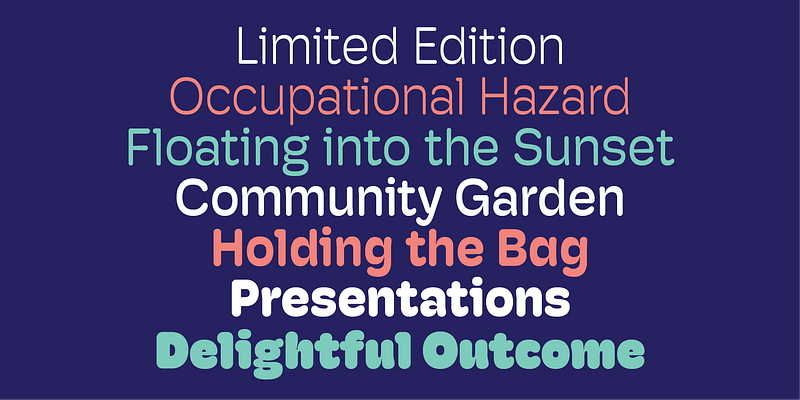
Hoss Round Narrow Font Free Download
Hoss Round Narrow Font Free Download is a sleek and contemporary sans-serif typeface with rounded corners and narrow proportions. The rounded letterforms give it a friendly, approachable feel while the condensed design makes it ideal for projects where space is limited but legibility remains a priority. Perfect for branding, logos, signage, and modern web design.
Hoss Round Narrow Font Free Download brings a clean, modern aesthetic to any project. Its condensed structure ensures it works well in tight spaces, making it a great choice for headlines, mobile design, and small-scale text. The rounded features help soften the typically sharp edges of sans-serif fonts, creating a more approachable and versatile design.
Whether you're working on minimalist branding, signage, or creating layouts for digital platforms, Hoss Round Narrow offers both style and practicality.